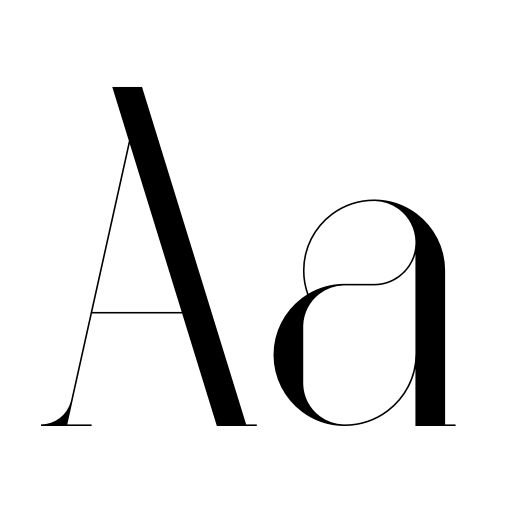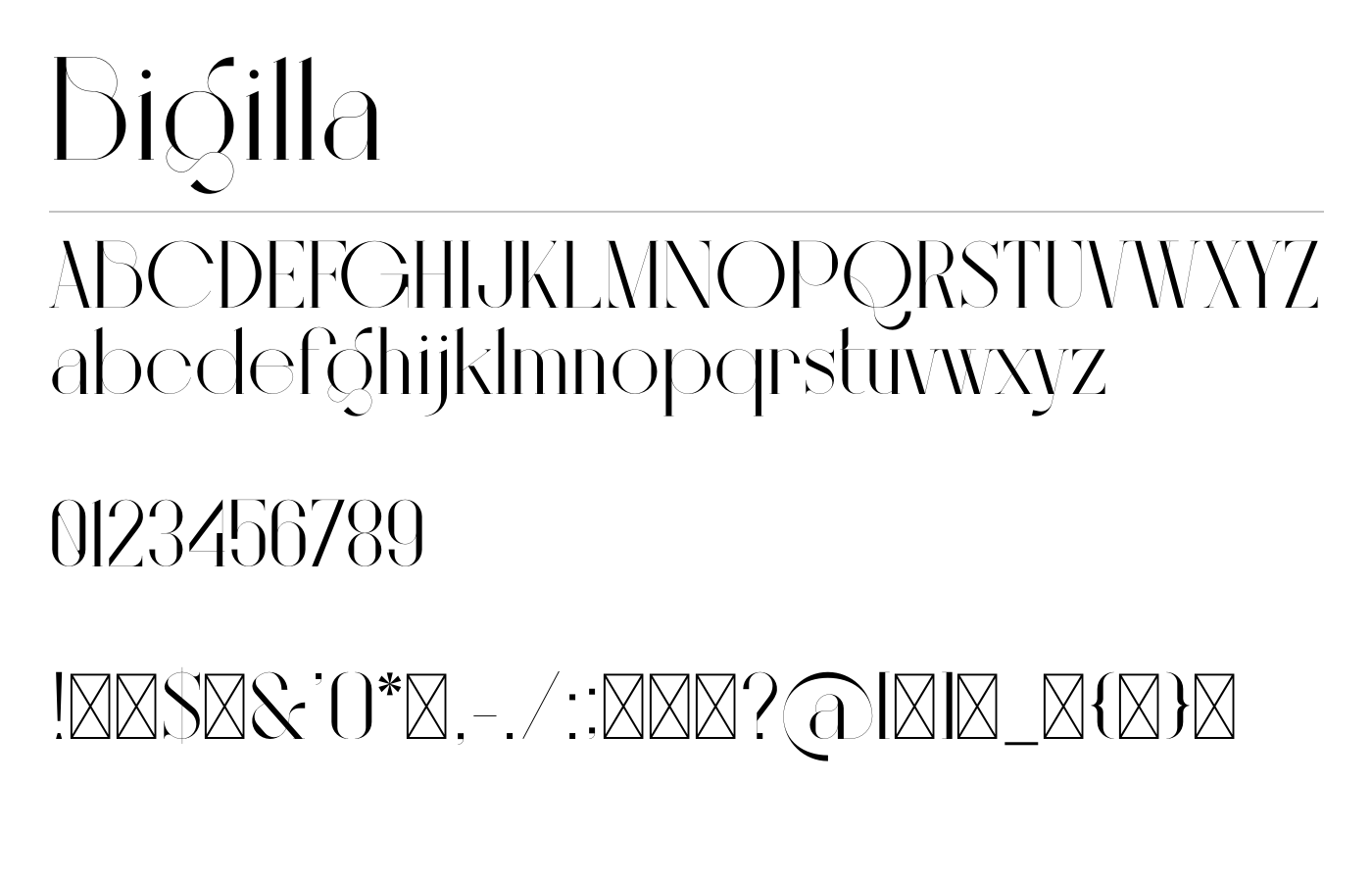
Bigilla is a stylish serif font characterized by its fine contrast between thick and thin strokes and elegant, elongated letterforms that give it a delicate and sophisticated appearance. Its unique curved details and high x-height make it ideal for luxury branding, fashion editorials, and upscale headlines where a refined and modern touch is desired. This font’s graceful personality lends itself well to use in logos, invitations, and other premium design projects that seek to convey elegance and exclusivity.
Bigilla Font
About Bigilla Font
| Font family | Bigilla Font |
| Designer | Jérémie Gauthier |